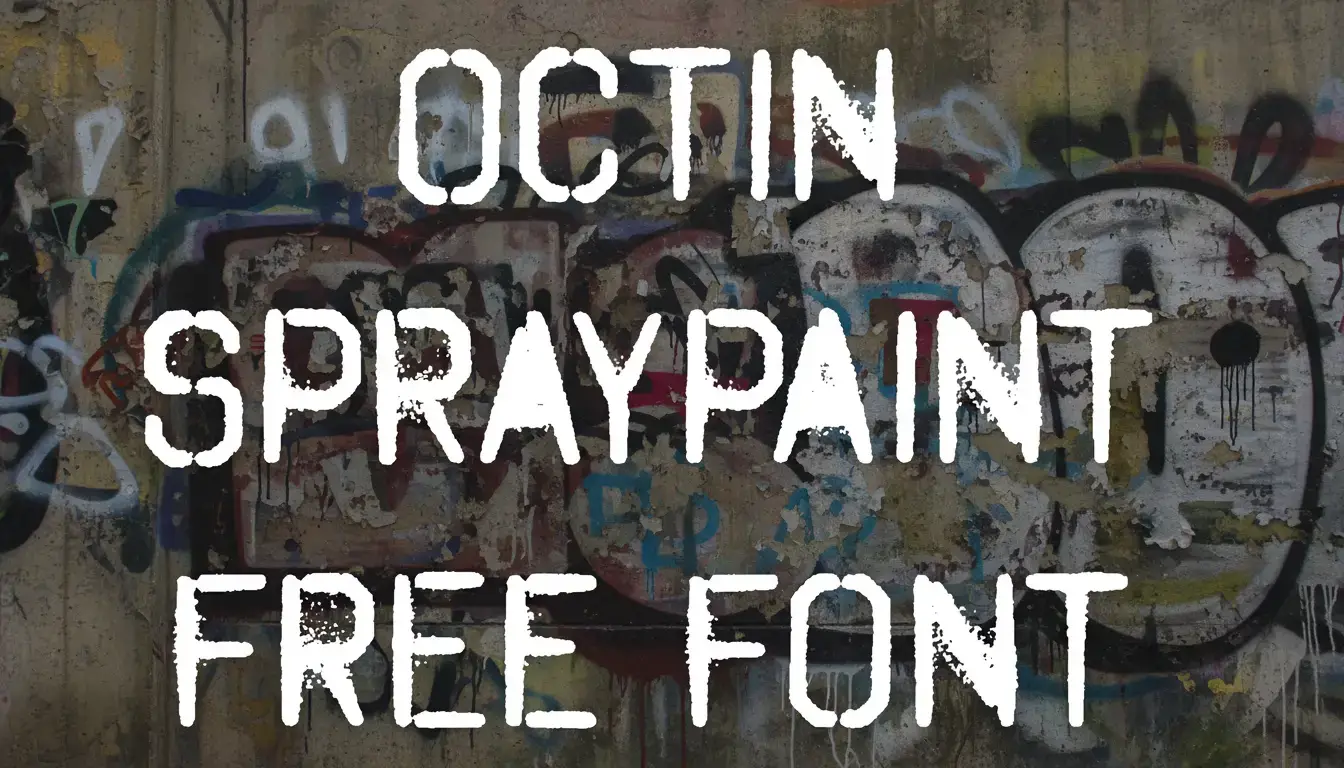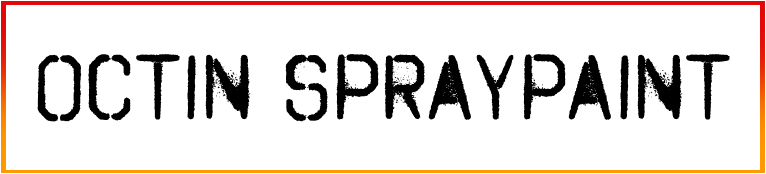
Octin Spraypaint Free Font
Octin Spraypaint Free
Octin Spraypaint Free is a fancy font designed by Ray Larabie. It's a decorative display font with plenty of personality, made to grab attention. It's a free download, and you can try it with your own text in the preview above first.
- Designer: Ray Larabie
What You Can Type With Octin Spraypaint Free
You get every letter from A to Z in both cases and all the numbers from 0 to 9, which means Octin Spraypaint Free can handle full sentences, dates and prices. Common punctuation such as &, !, ? and @ is included as well. It also has the accented letters you need for Spanish, French, German, Portuguese and Italian.
Where Octin Spraypaint Free Works Best
Designers usually reach for fonts like Octin Spraypaint Free when they're making posters, logos and eye-catching headlines. Use it for one standout word or headline and let simpler fonts handle the rest.
Does Octin Spraypaint Free support accented letters?
Yes. Octin Spraypaint Free includes the accented letters needed for Spanish, French, German, Portuguese and Italian, so it works for more than just English.